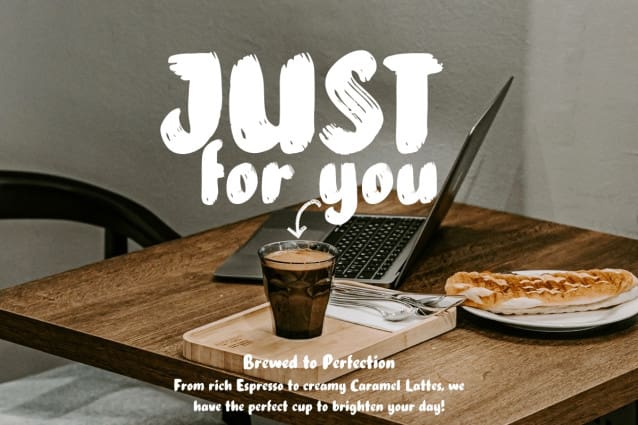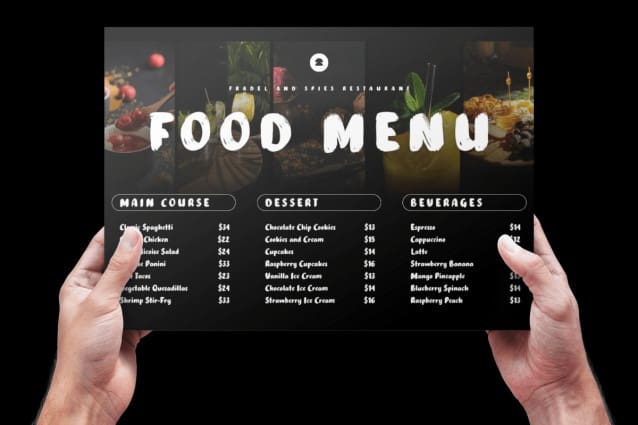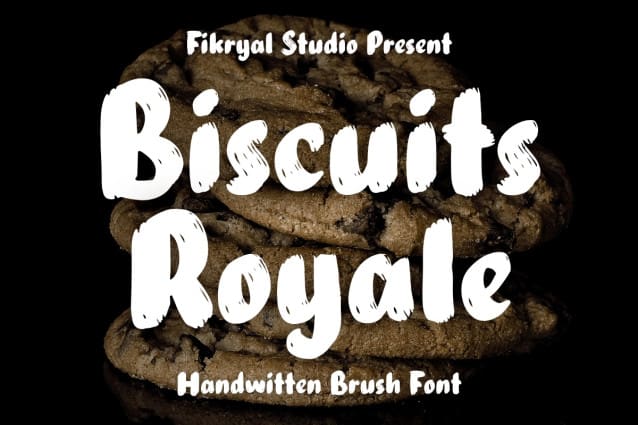
Biscuits Royale Font
Biscuits Royale is a handwritten brush font that brings a natural, dynamic, and authentic touch to your designs. Featuring two distinct styles—Regular and Italic—this font offers versatility for creating expressive and bold typography.